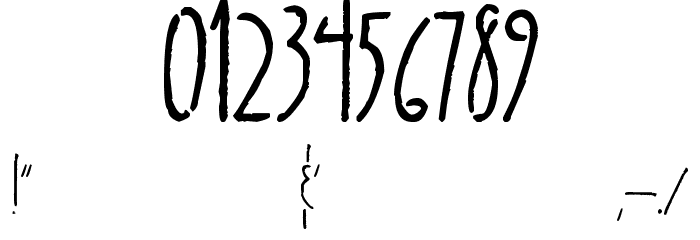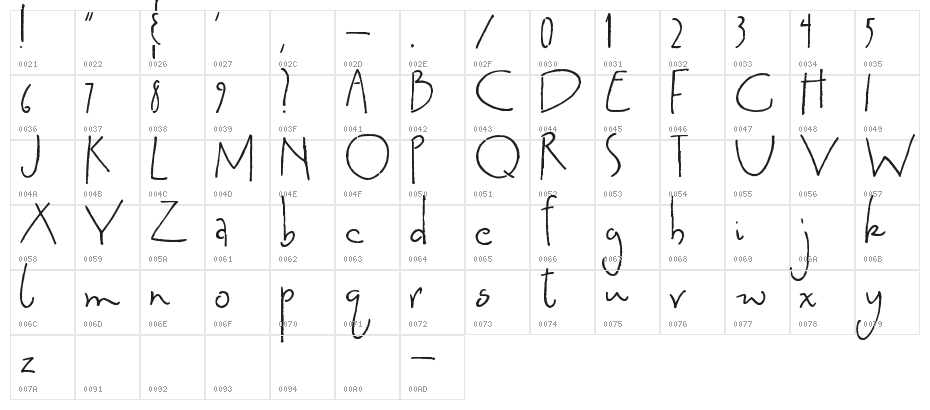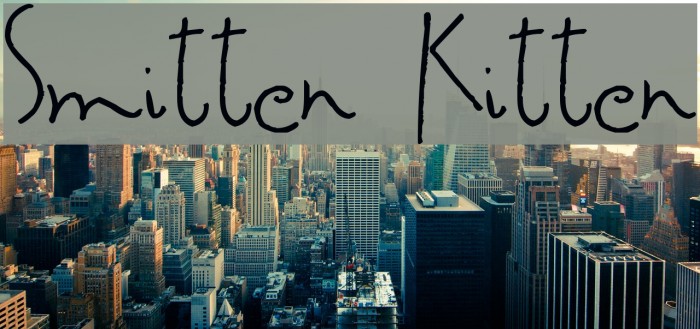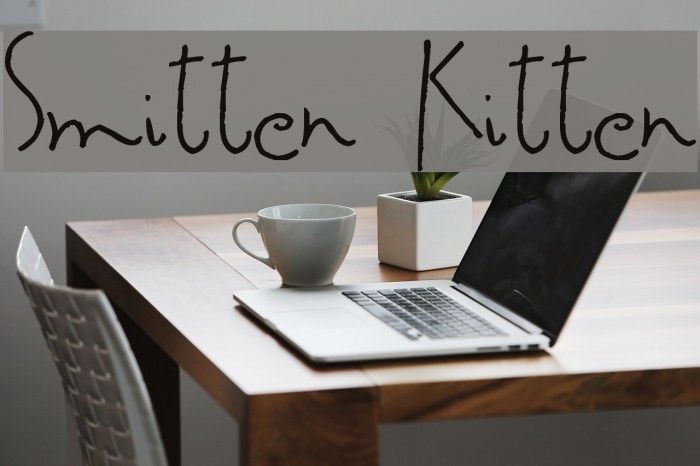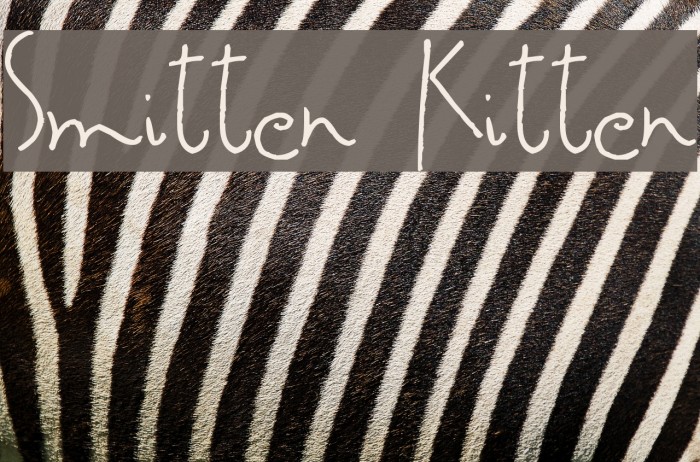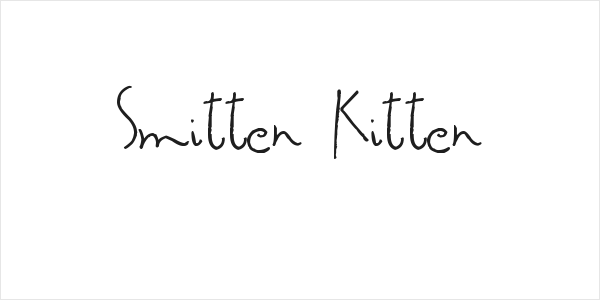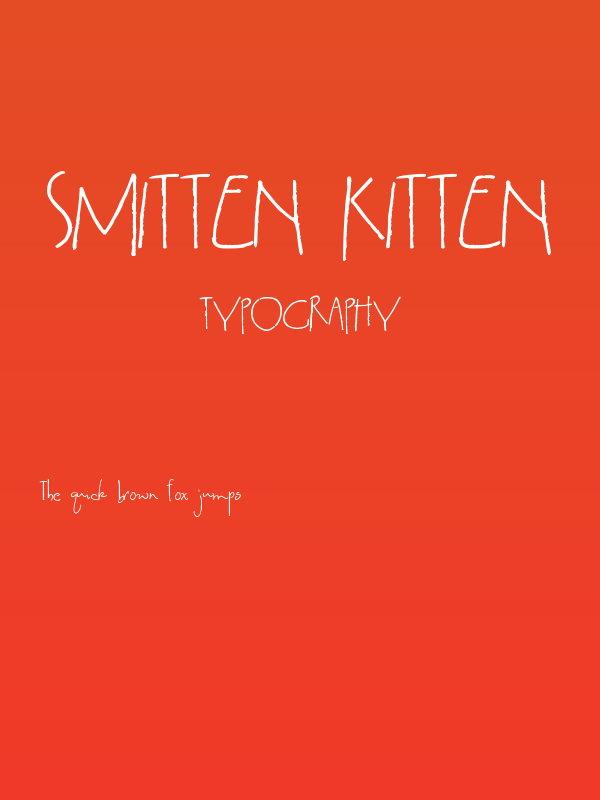
Smitten Kitten Font
Smitten Kitten Description
This font features a playful and whimsical handwritten style, characterized by its irregular strokes and casual appearance. The uppercase letters are tall and slightly narrow, with a mix of straight and curved lines that give them a lively feel. The lowercase letters maintain the same playful quality, with some letters featuring loops and swirls that add to the font's charm. The numbers are consistent with the overall style, maintaining the same hand-drawn aesthetic. Special characters are included, each with its own unique flair, complementing the font's overall design. This font is ideal for projects that require a personal touch or a sense of fun and creativity.